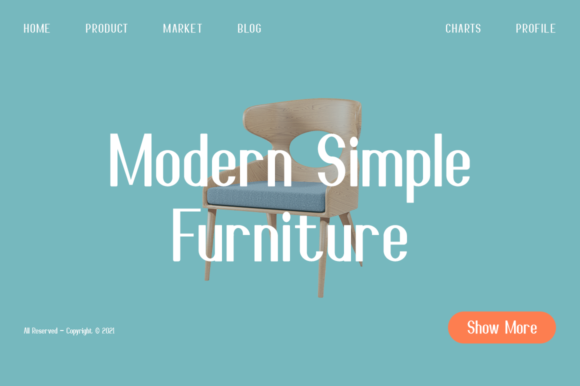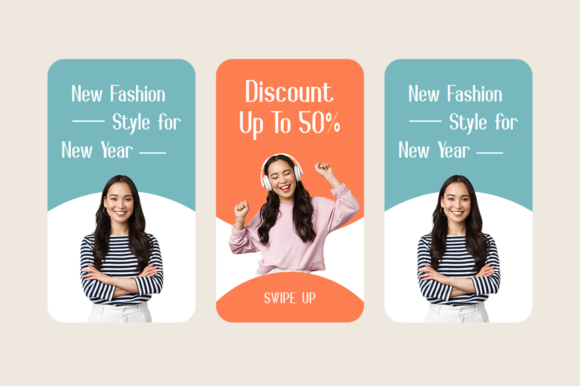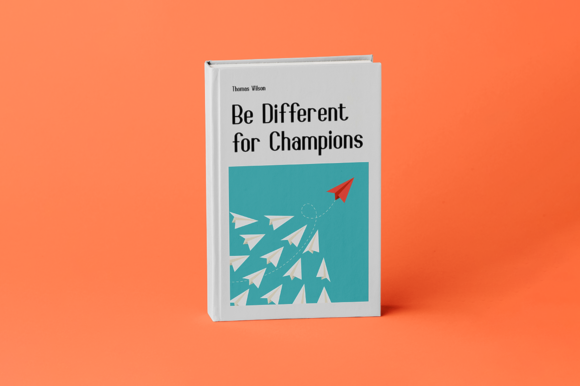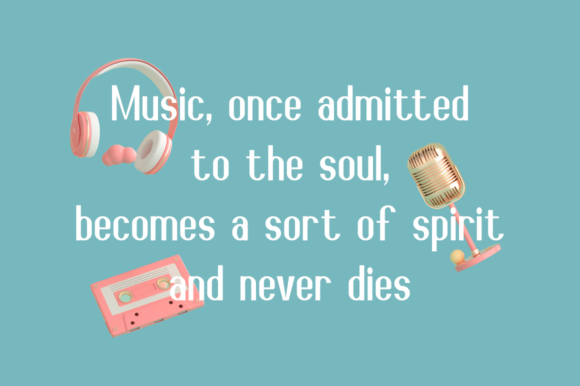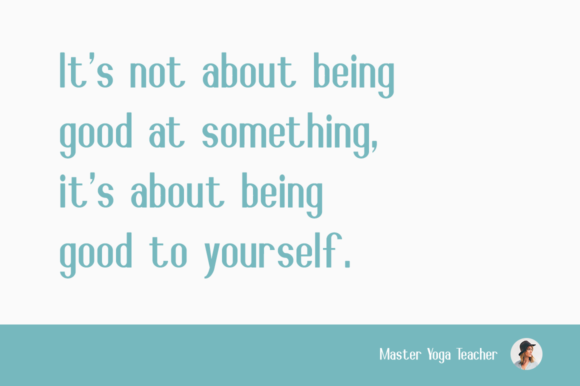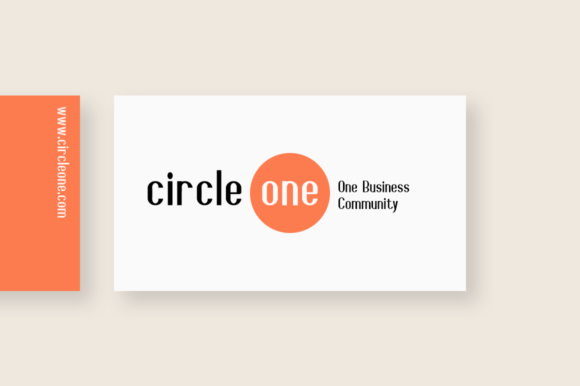
Introducing Champions Font: The Ultimate Modern Sans Serif for Creative Projects
In the world of typography, a font can make or break a design project. A well-chosen font can elevate your creative ideas, add a touch of personality, and leave a lasting impression on your audience. If you’re a designer, crafter, or simply someone who appreciates the art of typography, you’re in luck! Meet Champions Font, a minimal and modern sans serif font that’s about to become your new go-to companion for a wide range of projects.
What is Champions Font?
Champions Font is a sleek and contemporary sans serif font that’s designed to be versatile and highly adaptable. Its clean lines, simple shapes, and generous spacing make it an excellent choice for a variety of applications, from digital designs to print materials. Whether you’re working on a logo, branding project, website, or social media graphics, Champions Font is the perfect companion to help your creative ideas shine.
Key Features of Champions Font
- Minimal and Modern Design: Champions Font boasts a minimalist aesthetic that’s perfect for modern designs. Its simple yet elegant shape makes it easy to pair with a wide range of styles and themes.
- Sans Serif Elegance: The font’s sans serif design ensures that your text remains clean and uncluttered, making it ideal for body text, headings, and titles.
- Highly Versatile: Champions Font can be used for a vast array of projects, including logos, branding, websites, social media graphics, posters, and more.
- Easy to Read: The font’s generous spacing and clear typography ensure that your text is always easy to read, even at smaller sizes.
Why Choose Champions Font?
So, what sets Champions Font apart from other fonts? Here are just a few reasons why designers and crafters are falling in love with this amazing font:
- Unique and Memorable: Champions Font has a distinct personality that will help your designs stand out from the crowd.
- Time-Saving: With Champions Font, you can create professional-looking designs in no time. Its versatility and ease of use make it a huge time-saver.
How to Use Champions Font
Champions Font is incredibly easy to use, even if you’re not a seasoned designer. Here are a few tips to get you started:
- Pair it with Other Fonts: Champions Font pairs well with a wide range of fonts, so feel free to experiment and find your favorite combinations.
- Experiment with Sizes and Colors: Don’t be afraid to try out different sizes and colors to add visual interest to your designs.
- Use it for Headings and Body Text: Champions Font is suitable for both headings and body text, making it a great all-around font for your projects.
In conclusion, Champions Font is a game-changer for designers and crafters who want to elevate their creative projects with a modern and minimal sans serif font. Its versatility, ease of use, and unique personality make it an excellent addition to any design toolkit. So why wait? Add Champions Font to your collection today and discover how it can help your creative ideas stand out!
Whether you’re working on a personal project or a client’s brief, Champions Font is the perfect companion to help you achieve your design goals. With its clean design, ease of use, and affordability, this font is sure to become a favorite among designers and crafters. So go ahead, give Champions Font a try, and see the difference it can make in your designs!